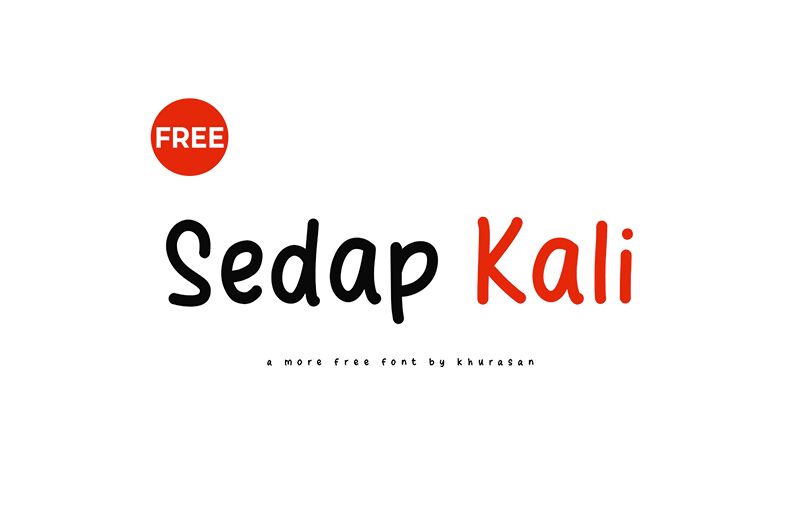
Sedap Kali
Sedap Kali font by Khurasan is a captivating handwritten typeface that exudes charm and personality. Its fluid strokes and natural flair create a sense of warmth and approachability, making it ideal for projects that require a personal touch. The distinct style lends itself well to creative designs, such as invitations, thank-you cards, and social media graphics.
As a free font available for download, Sedap Kali offers designers an accessible option to infuse their work with authenticity and creativity. Whether you're crafting short headlines or detailed print materials, this font's unique charm will set your designs apart.